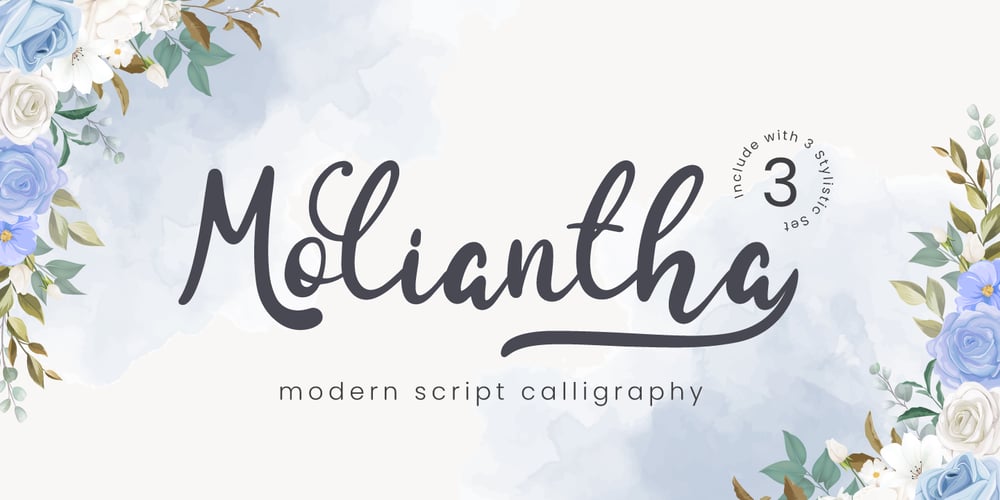
Moliantha
Moliantha font
Moliantha Font Family was designed by Fadli Ramadhan Iskandar and published by Attype Studio. Moliantha contains 1 styles and family package options. Moliantha is a delicate and incredibly distinct handwritten font with 3 stylistic set. Fall in love with its incredibly versatile style and use it to create spectacular designs!Moliantha is perfect for branding, logo, invitation, stationery, social media post, product packaging, merchandise, blog design, game titles, cute style design, Book/Cover Title and more.What’s Included :- ligatures- Beginning & Ending Swash- Multilingual Support —Hope you enjoy with our font!Attype Studio